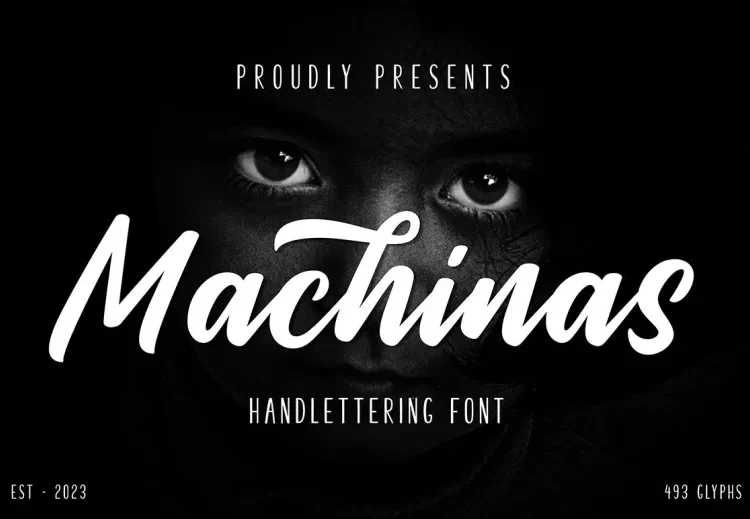
Machinas Font
Machinasis is a soft and sweet handwritten script font, characterized by its gently swaying characters that add a whimsical touch to any design. Originally developed from a hand-drawn sketch, this font captures the essence of hand-crafted artistry, bringing a personal and unique flair to your creative projects.
Key Features of Machinasis Font
• Hand-Crafted Charm: Machinasis was meticulously created from a manual hand sketch, resulting in a font that feels authentic and intimate. Its flowing lines and smooth curves make it an excellent choice for designs that require a personal, handcrafted touch.
• Versatile Design: Whether you’re designing logos, stickers, t-shirts, banners, posters, signage, or packaging, Machinasis offers the flexibility to enhance your projects. Its playful yet elegant style ensures your designs stand out with a warm and inviting feel.
• Complementary Illustrations: Combine Machinasis with additional illustrations to create even more visually appealing and impressive designs. The font’s versatility makes it ideal for a wide range of creative applications.